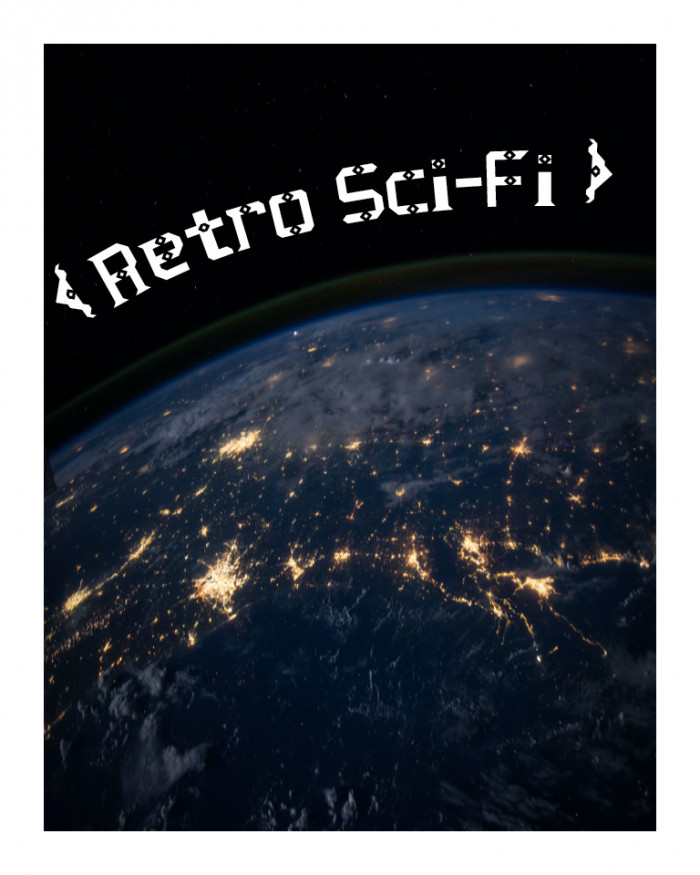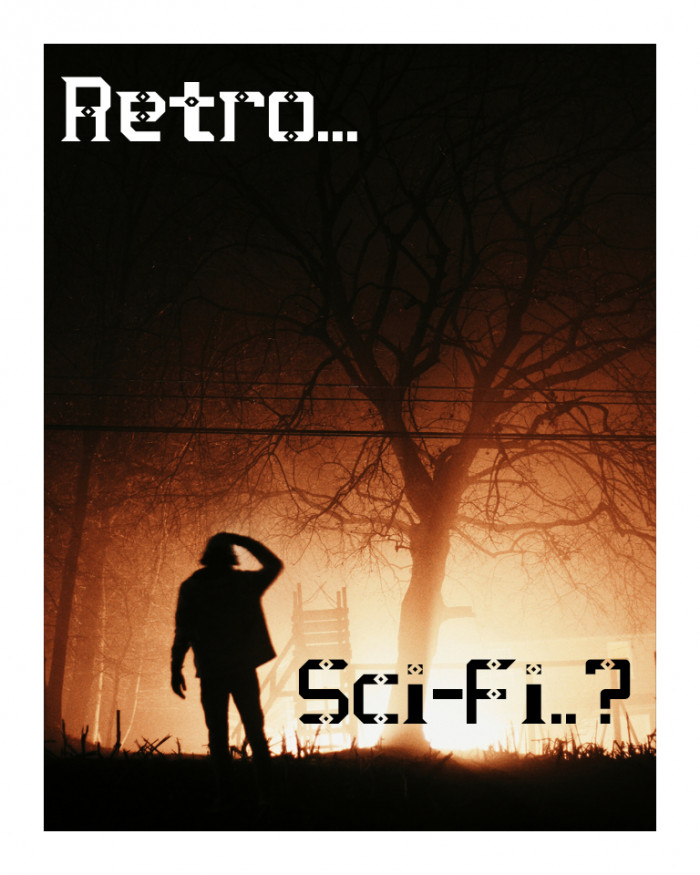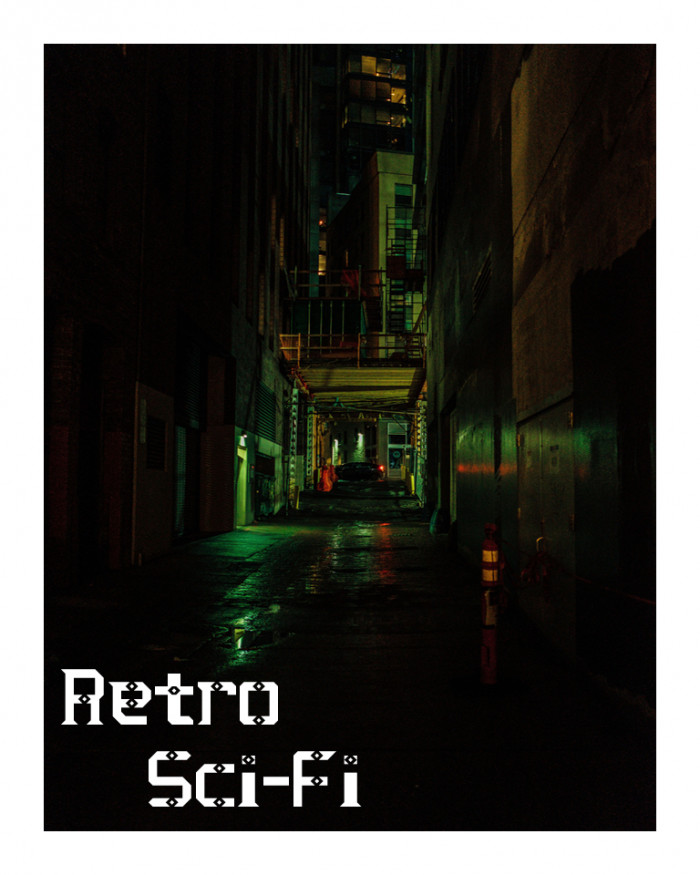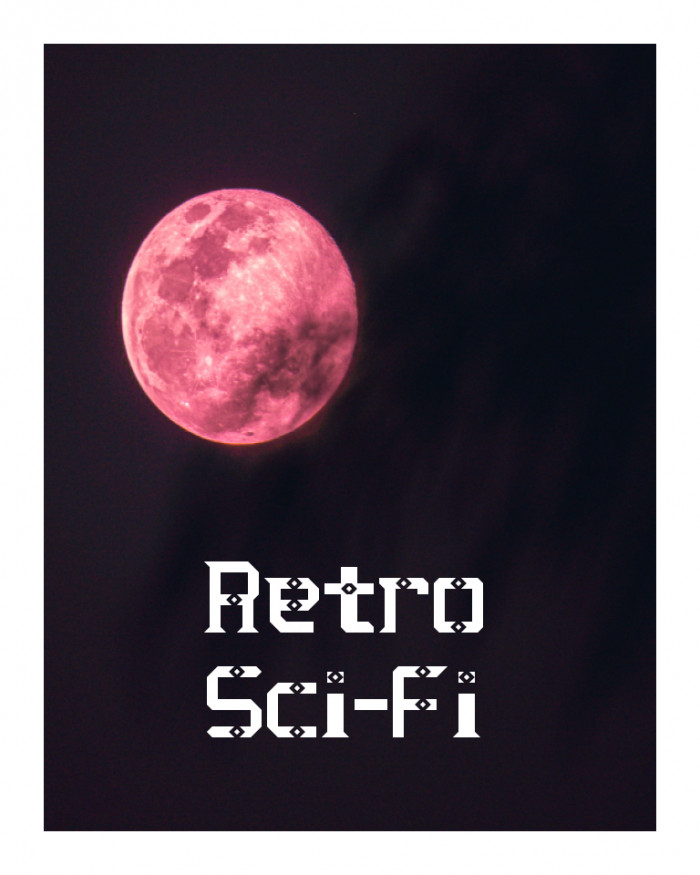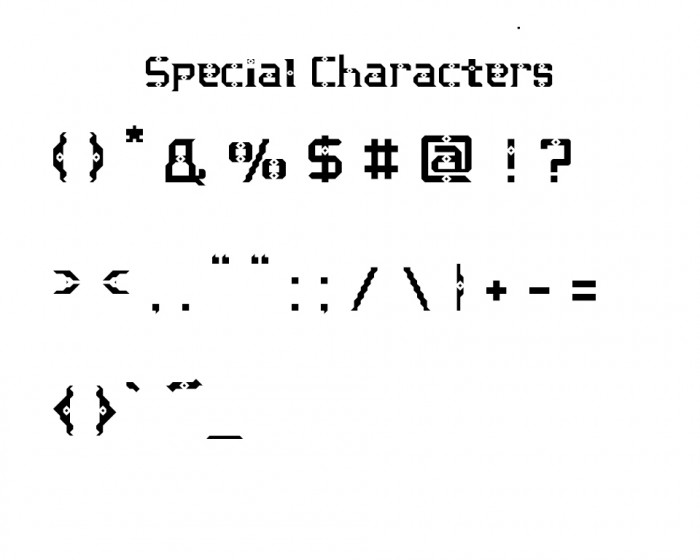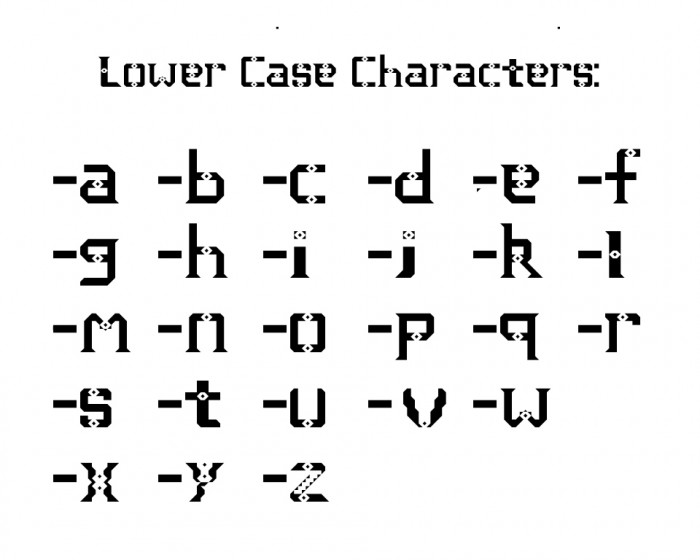
• A font that represents what the future looked like through the eyes of the past. Presenting sharp features that seem to be extraterrestrial symbols, this font is perfect for not just Sci-fi and video game lovers, but for those who want a bold and striking font to make their work bring awe and nostalgia to their audience.